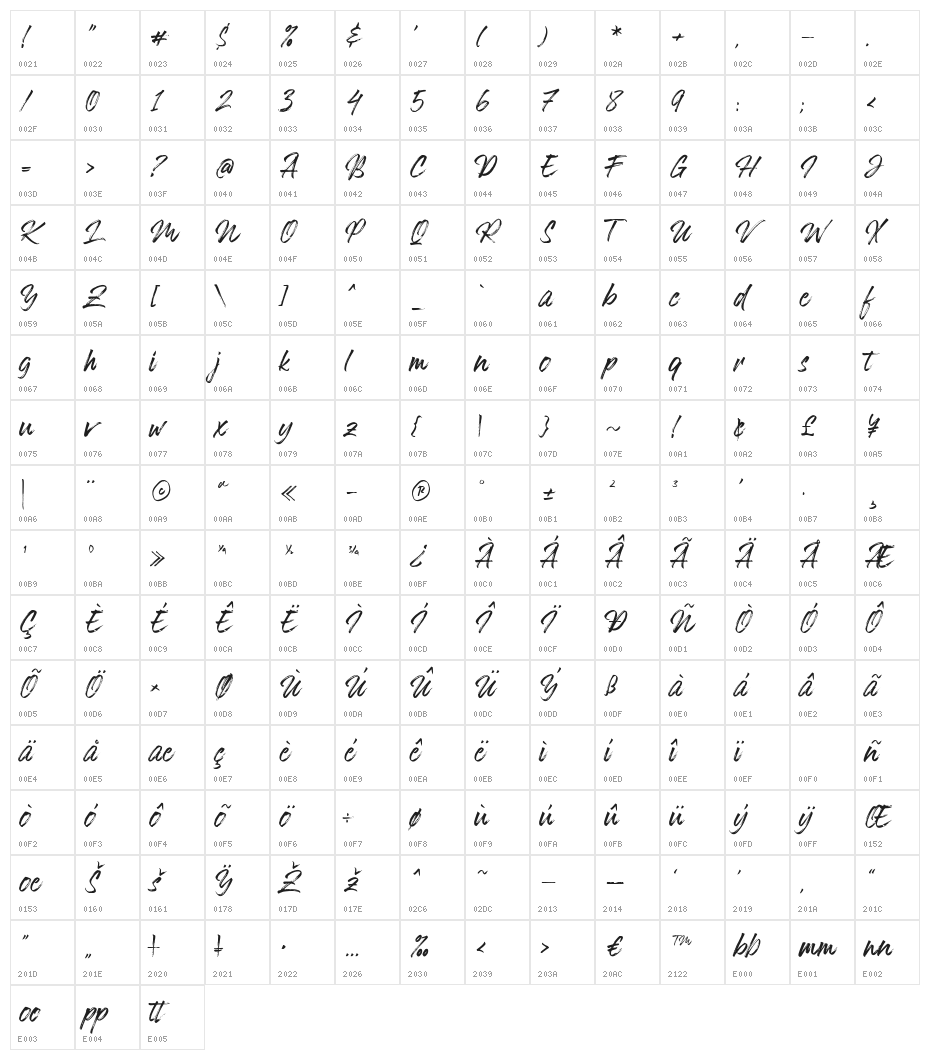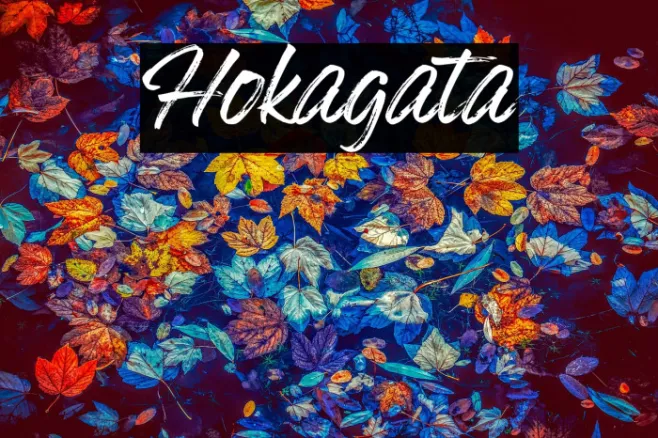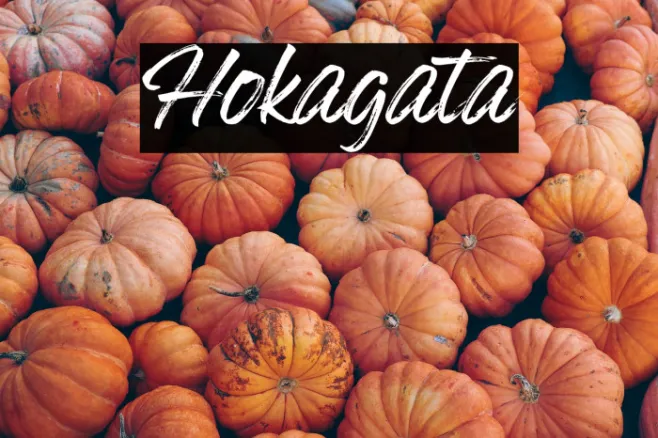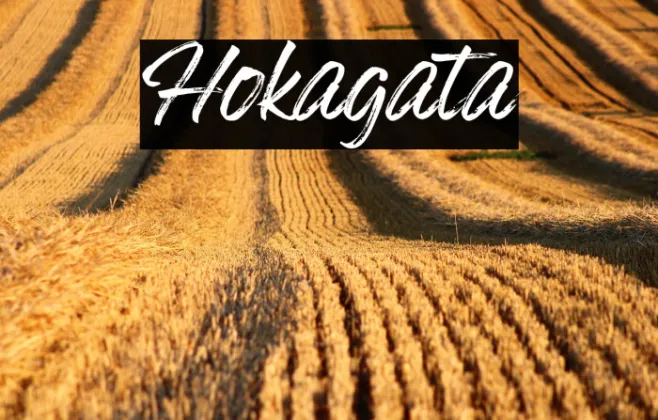
Hokagata Font
Hokagata Description
This font exudes a dynamic and energetic feel with its bold, brush-like strokes. Each character is crafted with a sense of movement, giving it a lively and expressive appearance. The uppercase letters are particularly striking, with sweeping lines and a slightly irregular form that adds to the hand-drawn aesthetic. The lowercase letters maintain this fluidity, offering a cohesive look across the alphabet. Numbers and special characters are equally expressive, ensuring consistency throughout. This font is perfect for projects that require a personal touch, such as invitations, posters, or branding materials that aim to capture attention and convey creativity.
| Proposed Projects | Ideal for creative projects like invitations, posters, and branding that require a personal, artistic touch. |